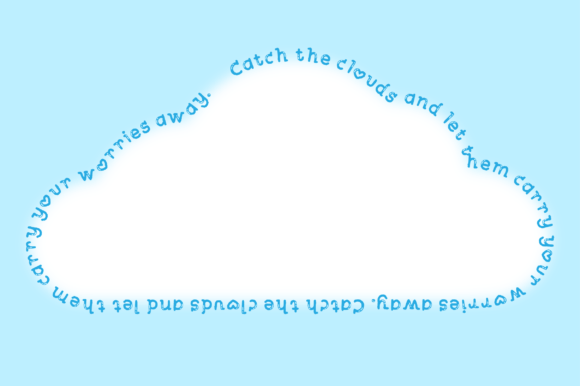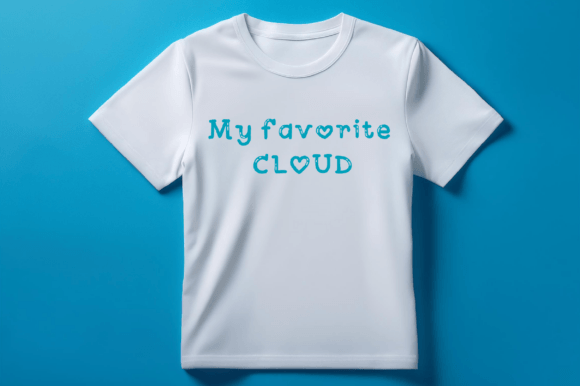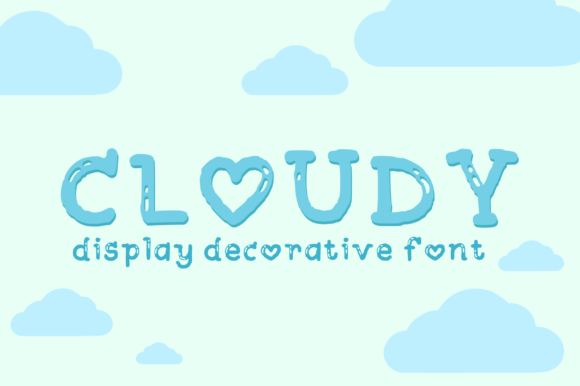
Introducing Cloudy Font: The Playful and Cheerful Typeface That’s Sure to Delight!
Are you tired of using the same old boring fonts in your designs? Look no further! Cloudy Font is here to bring a touch of whimsy and joy to your projects. This adorable typeface is filled with playful charm, making it perfect for designers and crafters who want to add a dash of personality to their work.
The Characteristics of Cloudy Font
Cloudy Font is a one-of-a-kind typeface that boasts soft, rounded strokes and adorable heart and cloud-inspired accents. Its unique design makes it stand out from other fonts, adding a touch of magic to any project. The font’s playful and cheerful vibe is sure to captivate your audience, making it ideal for a wide range of applications, from posters and cards to social media content.
Cloudy Font is incredibly versatile, making it suitable for various design projects. Here are some ideas to get you started:
- Cute Posters: Add a touch of whimsy to your posters with Cloudy Font. Its playful design makes it perfect for promoting events, products, or services in a fun and eye-catching way.
- Handmade Cards: Create one-of-a-kind greeting cards for special occasions, such as birthdays, weddings, or holidays. Cloudy Font’s charming design will make your cards truly unforgettable.
- Fun Social Media Content: Bring your social media posts to life with Cloudy Font. Its unique personality will help you stand out in a crowded feed and engage your audience.
Why Choose Cloudy Font?
With so many fonts available, why choose Cloudy Font? Here are just a few reasons why this typeface stands out:
- Unique Personality: Cloudy Font has a distinct personality that will set your designs apart from the rest.
- Playful and Cheerful: This font is guaranteed to bring a smile to your audience’s faces, making it perfect for projects that require a lighthearted touch.
- Easy to Read: Despite its playful design, Cloudy Font is easy to read, making it suitable for body text and headings.
Tips for Using Cloudy Font
To get the most out of Cloudy Font, here are some tips to keep in mind:
- Pair with Other Fonts: Combine Cloudy Font with other fonts to create a unique and visually appealing design.
- Experiment with Colors: Cloudy Font looks great in a variety of colors, so don’t be afraid to experiment and find the perfect hue for your project.
- Use it Sparingly: While Cloudy Font is playful and cheerful, it’s best to use it sparingly to avoid overwhelming your design.
Cloudy Font is a playful and cheerful typeface that’s sure to bring a touch of joy to your designs. With its soft, rounded strokes and adorable heart and cloud-inspired accents, it’s perfect for adding a dash of whimsy to any project. Whether you’re a designer or crafter, Cloudy Font is a must-have in your font collection. So why wait? Download Cloudy Font today and start creating designs that are sure to delight!
- Playful and cheerful typeface
- Soft, rounded strokes
- Adorable heart and cloud-inspired accents
- Perfect for posters, cards, and social media content
- Unique personality
- Easy to read